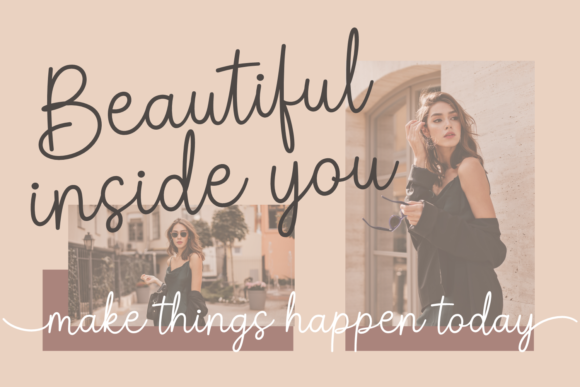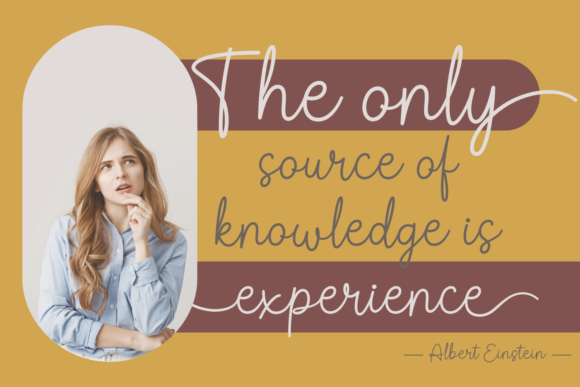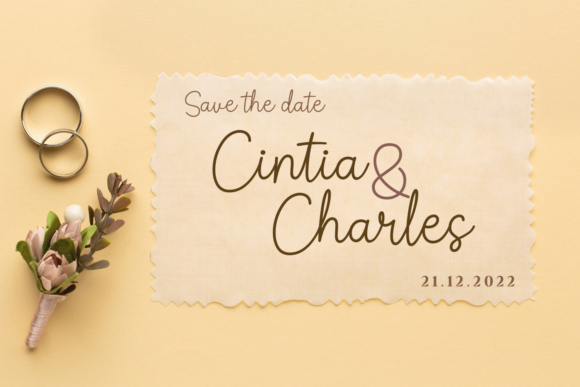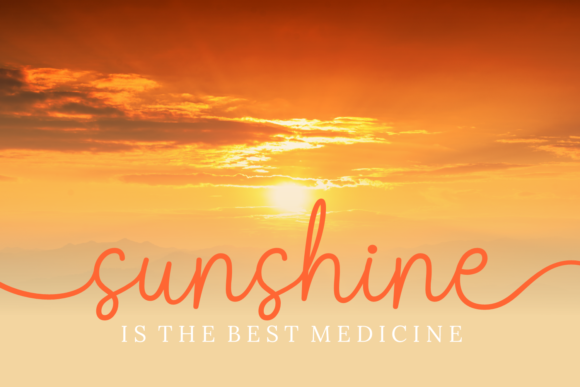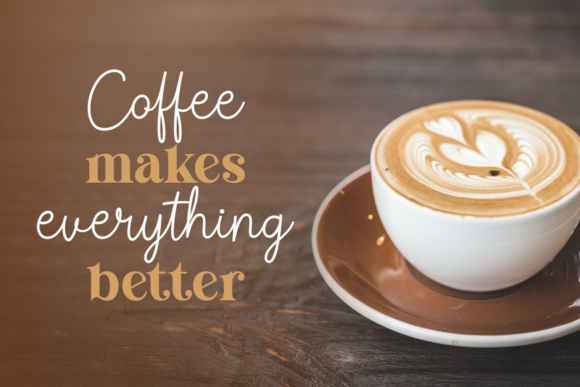
Introduction to Sarah Adeline Font
As you sit at your desk, surrounded by scattered papers and half-finished ideas, the perfect font suddenly pops into your mind. It’s a moment of pure creative bliss, and it’s exactly what you need to elevate your next project. For designers, finding the right font can be the difference between a good design and a great one. And that’s where the elegant Sarah Adeline Font comes in – a high-quality, free download that’s sure to inspire your next creative project.
With its beautiful, handwritten script, the Sarah Adeline Font is a valuable resource for designers looking to add a touch of sophistication to their work. Whether you’re creating wedding invitations, fashion branding, or personal quotes, this font is sure to shine. And with a transparent background, you can easily layer it with other design elements to create a truly unique look.
Key Features of Sarah Adeline Font
- High-quality design resource ideal for creative projects, including invitations, greeting cards, and more.
- Unique, elegant script font with a transparent background, perfect for adding a touch of sophistication to your design.
- Features a beautiful, handwritten style with subtle flourishes, adding a personal touch to your creative project.
- Perfect for designers looking for a high-quality, free font that adds a touch of elegance and sophistication to their designs.
Honest Review: Sarah Adeline Font
As a designer, I’m always on the lookout for high-quality design resources to elevate my creative projects. Recently, I stumbled upon the Sarah Adeline Font, and I’m excited to share my honest review.
- ✨ Elegant and sophisticated design aesthetic that’s perfect for luxury brands or high-end creative projects.
- ✨ Transparent background option that makes it easy to customize and integrate with other design elements.
- ⚠️ Limited font styles and weights available, which might limit its versatility for certain projects.
- ⚠️ No bold or italic versions of the font, which can make it less effective for headlines or emphasis.
Overall, I’m impressed with the Sarah Adeline Font’s design quality and ease of use. While it may not be the most versatile font, it’s a great addition to any designer’s toolkit, especially for creative projects that require a touch of elegance and sophistication. It’s a free download, making it an even more attractive option for designers on a budget.
Sarah Adeline Font is a high-quality design resource ideal for various creative projects. Its transparent background makes it versatile for use in multiple design applications.
Experiment with different font sizes, colors, and styles to create unique designs. Use the transparent background to layer the font over images or other design elements.
Common Use Cases for Sarah Adeline Font
Sarah Adeline Font is suitable for a variety of projects, including wedding invitations, business cards, and social media graphics. Its high-quality design makes it an ideal choice for creative professionals.